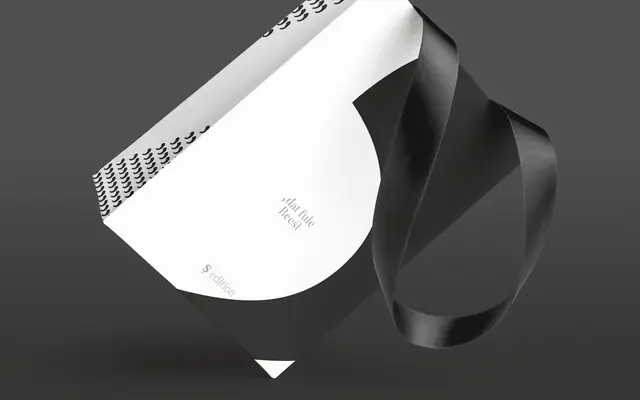
Kisba Nova Headline
A high-contrast display serif that pairs sharp wedge serifs and spiky spurs with soft ball terminals across seven weights, optimised for use at 24pt and above.
The Headline optical size of Kisba Nova pushes the family's neoclassical contrast to its most dramatic register, with thin monolinear diacritics and punctuation that reinforce its contemporary edge. Seven weights from Thin to Black give range across titles and editorial headlines, and around 600 glyphs per weight cover extended Latin with OpenType features including oldstyle and lining figures, discretionary ligatures and case-sensitive forms. The companion Text subfamily handles smaller sizes, keeping the visual character intact at reading scale.
Kisba Nova Headline is a high-contrast display serif combining wedge serifs and spiky spurs with soft ball terminals, drawing on neoclassical stroke contrast traditions while pushed toward expressive, theatrical extremes.